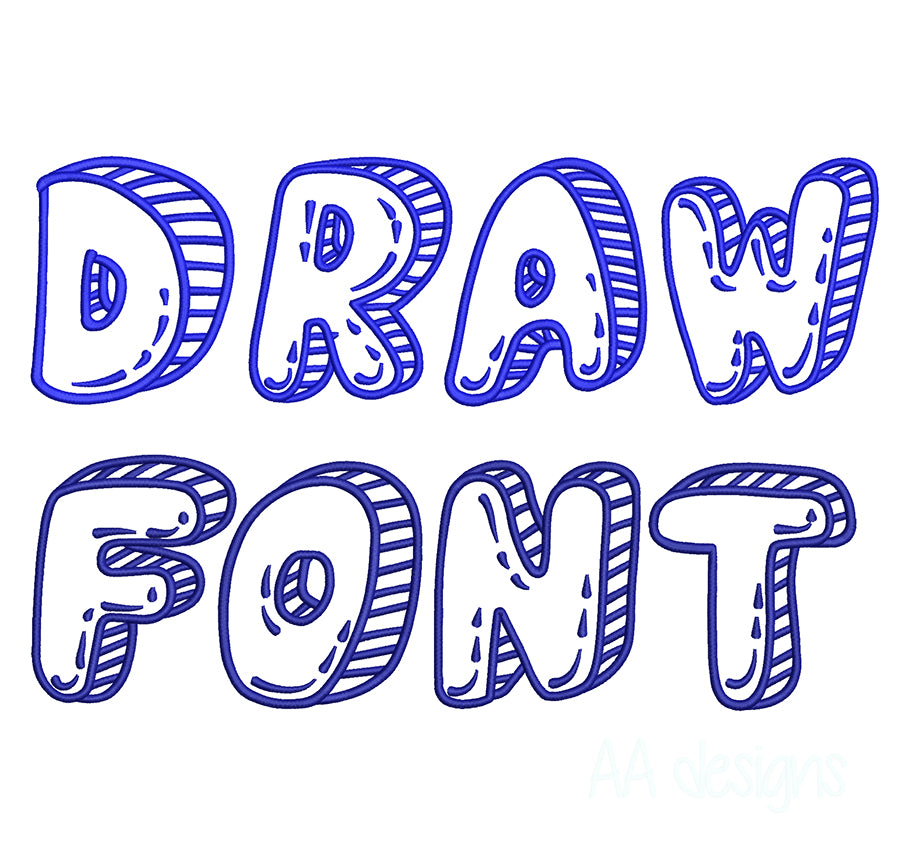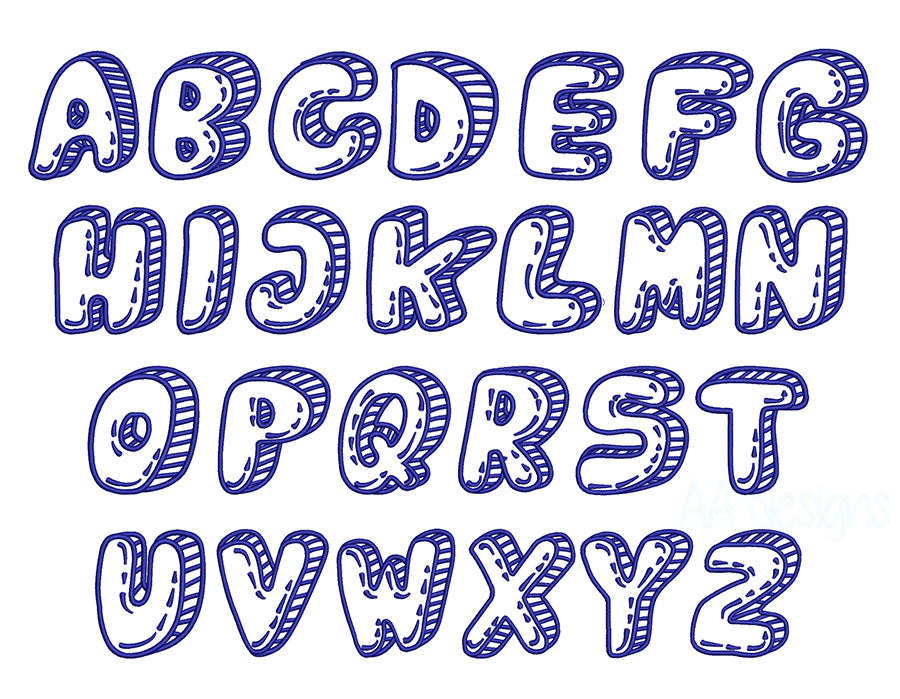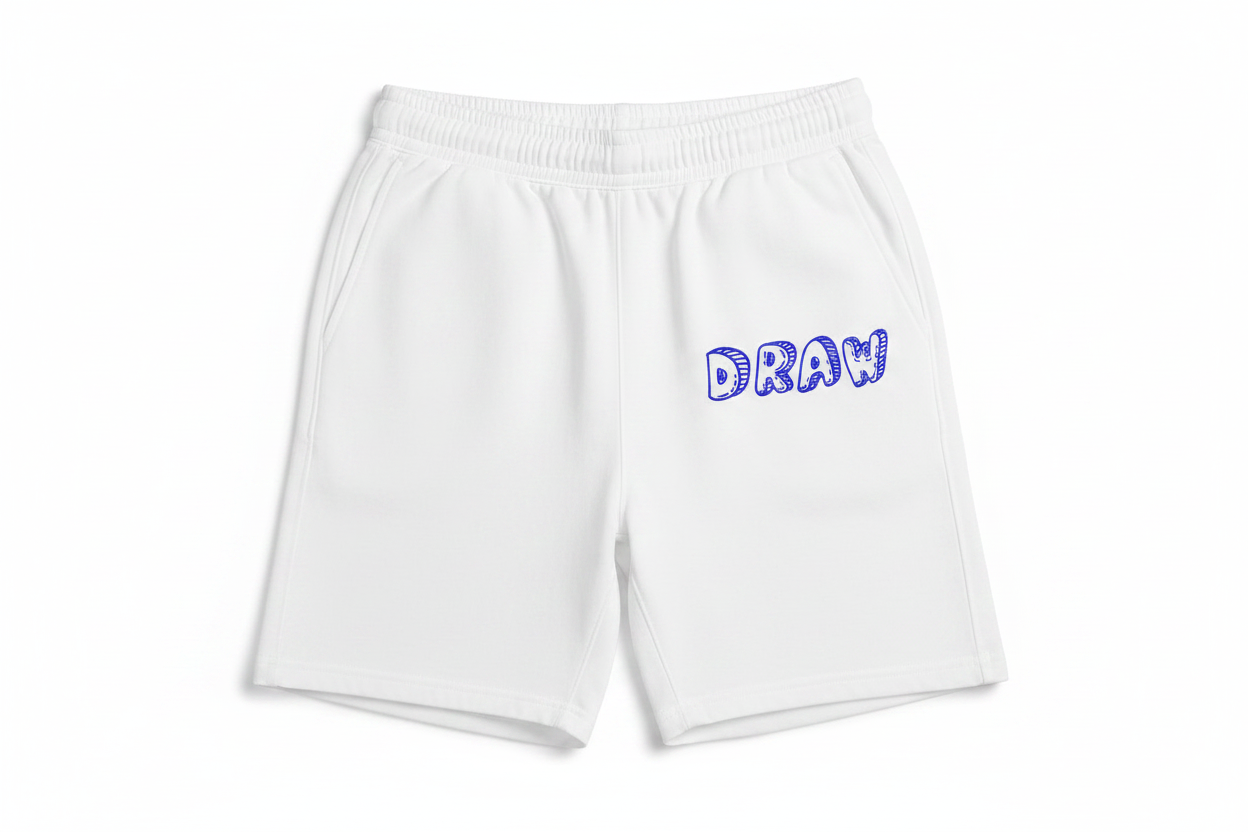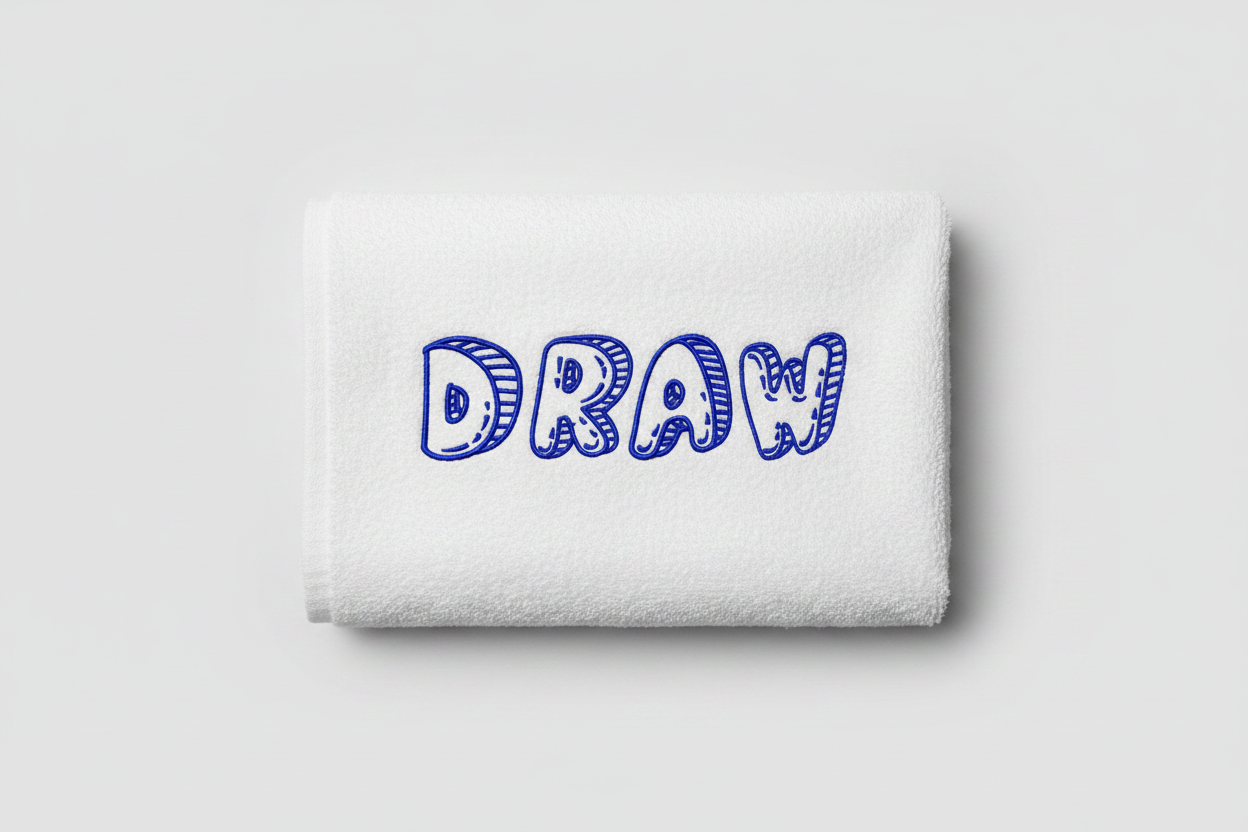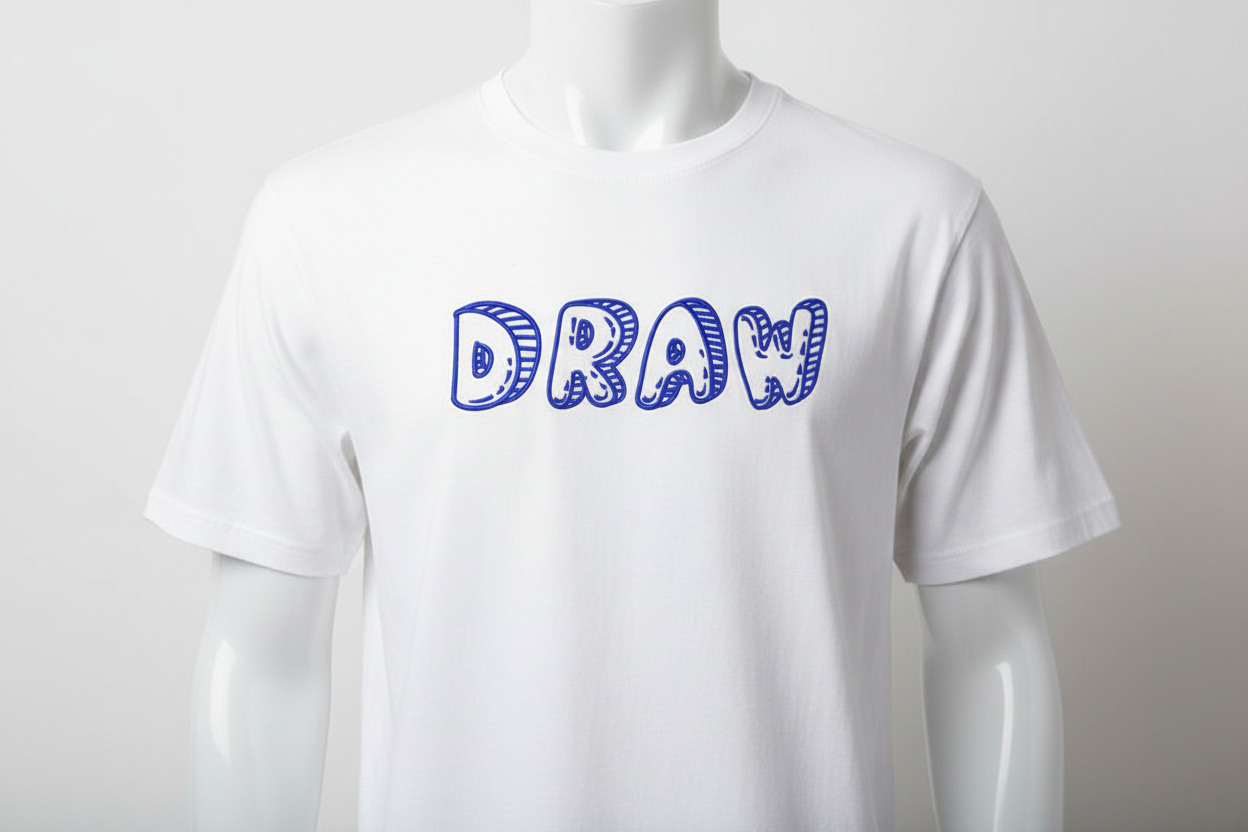
Instant-download machine embroidery DRAW font — playful, sketchy, and perfect for apparel, towels, and everyday items. Compatible with all major embroidery formats.
- Fun hand-drawn embroidery style
- Great for t-shirts, shorts, and bath towels